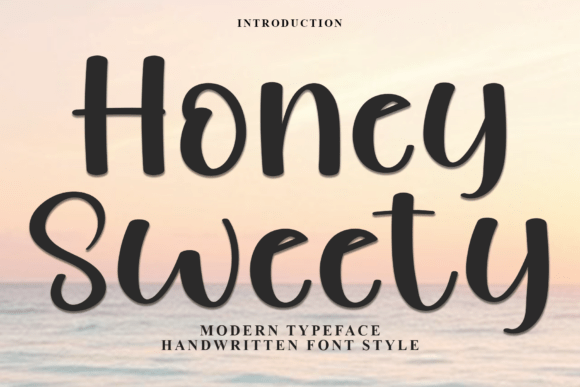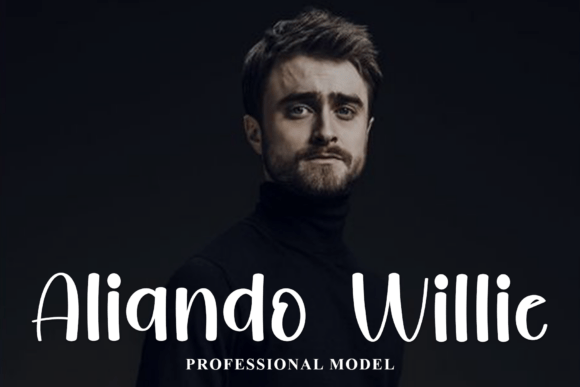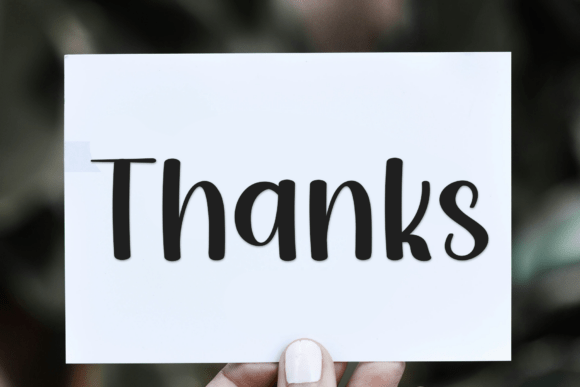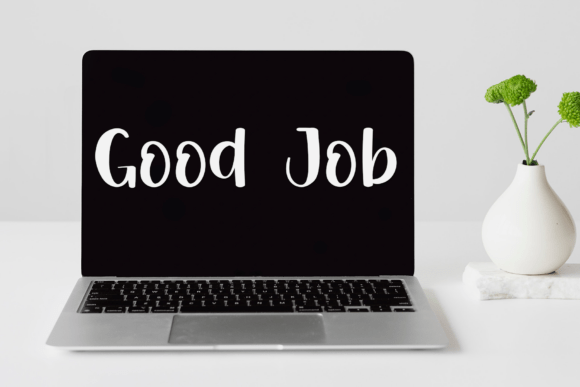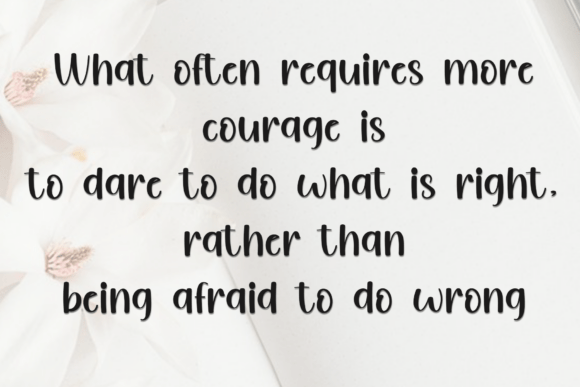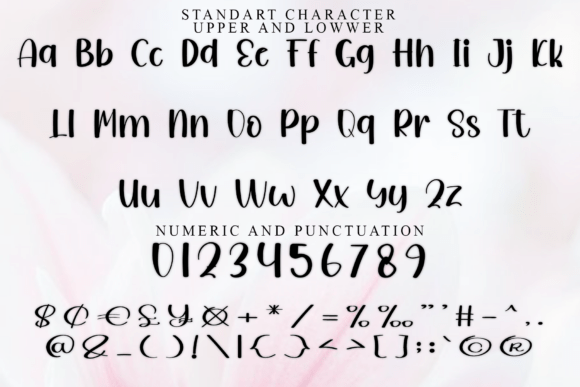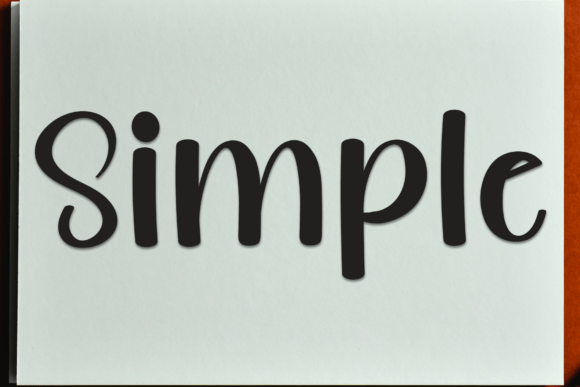
Get Ready to Spread Holiday Cheer with the Honey Sweety Font
As the snowflakes start to fall and the lights begin to twinkle, the holiday season is officially in full swing. For designers, this means it’s time to get creative and craft the perfect greeting cards, gift tags, and holiday-themed projects. But, what really sets your designs apart from the rest? That’s where the enchanting Honey Sweety Font comes in – a festive and merry typeface that captures the magic of the season.
With its whimsical flair and decorative elements, the Honey Sweety Font adds a touch of nostalgia and cheer to any design. Whether you’re a seasoned pro or a design newbie, this font is a valuable tool in your toolkit, making it easy to access all the amazing glyphs and ligatures thanks to its PUA encoding. So, why not let your typography shine with the magic of the Honey Sweety Font and make this holiday season one to remember?
Honey Sweety Font Key Features
- Unique Characteristics: The Honey Sweety Font features a unique, cursive script with a playful and elegant feel, making it perfect for creating eye-catching and stylish designs.
Honey Sweety Font Review
Overall, I found the Honey Sweety Font to be a sweet and playful addition to any design project. ✨ It’s perfect for creating a fun and youthful vibe, especially when used for titles and headings.
- The font’s rounded edges and smooth curves give it a friendly and approachable feel.
- The font may not be suitable for formal or professional designs, as it can come across as too playful or childish.
- Some users may find the font’s whimsical style to be distracting or overbearing.
Overall, I think the Honey Sweety Font is a great choice for designers looking to add a touch of personality to their work. Just be mindful of its limitations and use it thoughtfully to avoid overwhelming your audience.
Getting the Most Out of Honey Sweety Font
For the best results, use Honey Sweety Font in bold or italic styles to add emphasis to your text.
Combine Honey Sweety Font with other playful fonts to create a unique and eye-catching design.
Honey Sweety Font is perfect for:
- Social media posts and advertisements.
- Children’s products and educational materials.